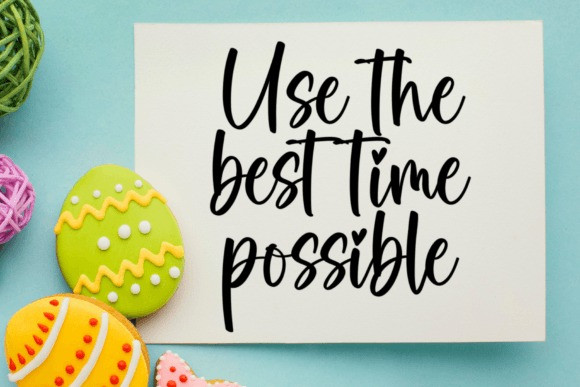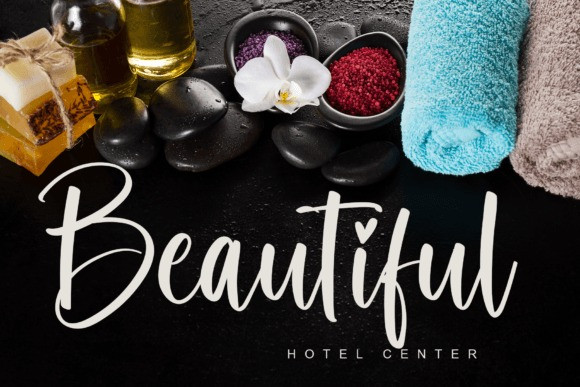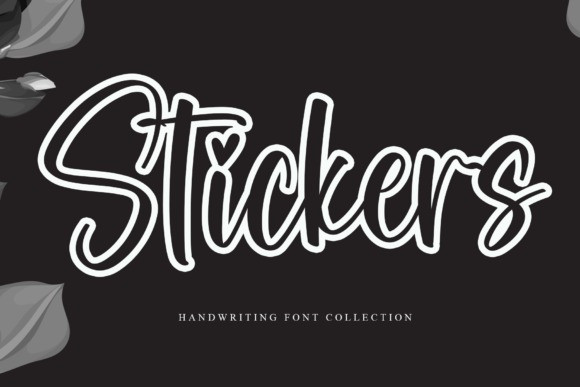
Stickers Script Font
Stickers Script Font is a sweet and beautiful handwritten font. Featuring characters that dance along the baseline, this font will add a luxury spark to any design project you wish to create!